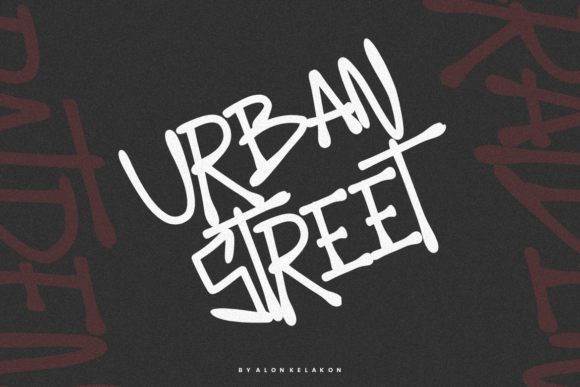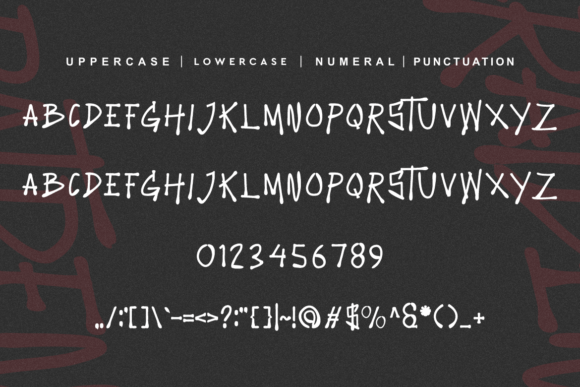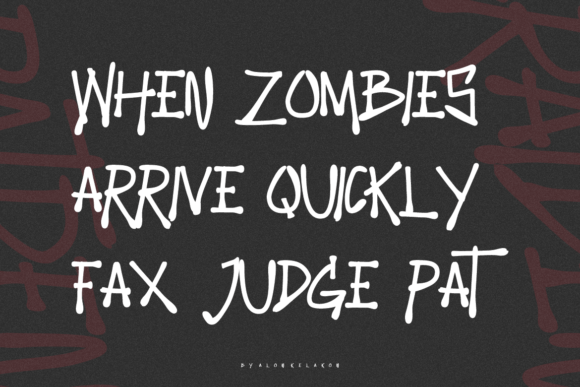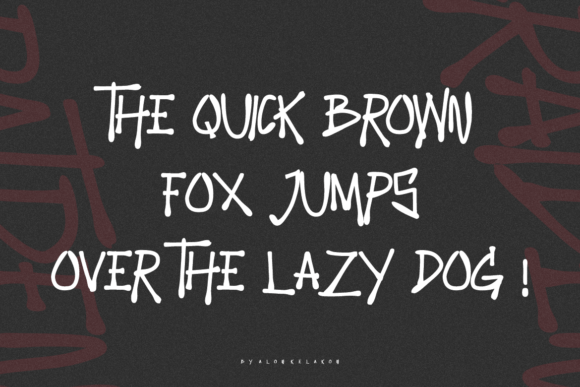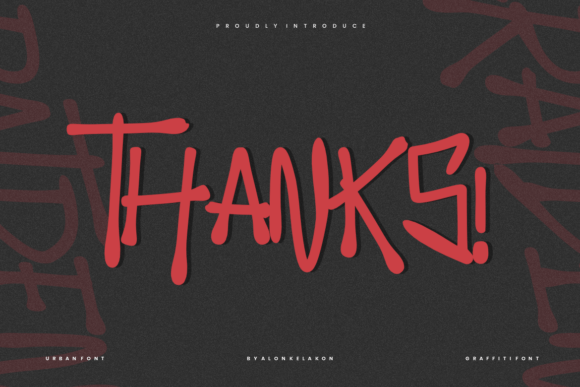
Gratdeng Font: Unleash Your Creativity with this Bold Urban Graffiti Street Font
Are you a designer or crafter looking for a font that can add a touch of edginess and style to your work? Look no further than Gratdeng Font, a bold and stylish urban graffiti street font that’s perfect for making a statement in posters, designs, and street-style graphics.
What is Gratdeng Font?
Gratdeng Font is a unique and eye-catching font that’s inspired by the vibrant and dynamic world of urban graffiti. It features strong, angular letters with a cool, graffiti-inspired look that’s sure to grab attention. With its bold and stylish design, Gratdeng Font is perfect for adding a touch of urban flair to any design project.
Key Features of Gratdeng Font
- Bold and Stylish Design: Gratdeng Font features strong, angular letters with a cool, graffiti-inspired look that’s perfect for making a statement.
- Urban Graffiti Inspiration: Inspired by the vibrant and dynamic world of urban graffiti, Gratdeng Font is perfect for adding a touch of edginess and style to any design project.
- Perfect for Posters and Designs: With its bold and stylish design, Gratdeng Font is perfect for use in posters, designs, and street-style graphics.
Benefits of Using Gratdeng Font
- Adds a Touch of Edginess and Style: Gratdeng Font adds a touch of edginess and style to any design project, making it perfect for designers and crafters who want to create bold and eye-catching work.
- Increases Visibility: With its bold and stylish design, Gratdeng Font is sure to grab attention and increase visibility for any design project.
- Perfect for Urban-Themed Designs: Gratdeng Font is perfect for use in urban-themed designs, such as posters and flyers for concerts, festivals, and other events.
Tips and Tricks for Using Gratdeng Font
- Use it Sparingly: While Gratdeng Font is bold and eye-catching, it can be overwhelming if used too much. Use it sparingly to add a touch of urban flair to your design.
- Pair it with Other Fonts: Gratdeng Font pairs well with other fonts, such as sans-serif fonts like Arial or Helvetica. Experiment with different font combinations to find the perfect look for your design.
- Experiment with Colors: Gratdeng Font looks great in a variety of colors, from bold and bright to muted and pastel. Experiment with different colors to find the perfect look for your design.
Gratdeng Font is a bold and stylish urban graffiti street font that’s perfect for making a statement in posters, designs, and street-style graphics. With its strong, angular letters and cool, graffiti-inspired look, Gratdeng Font is sure to grab attention and add a touch of edginess and style to any design project. Whether you’re a designer or crafter, Gratdeng Font is a great addition to your font library.